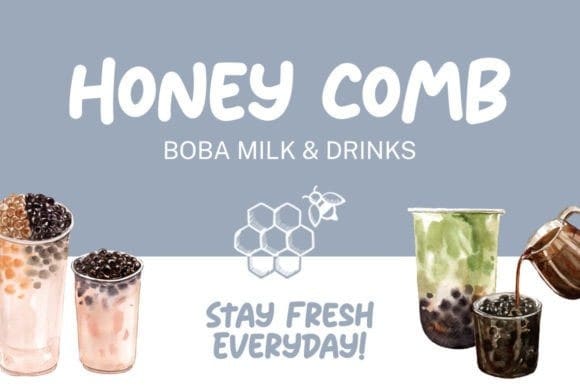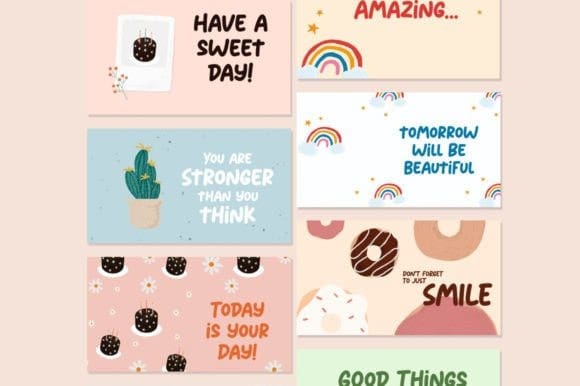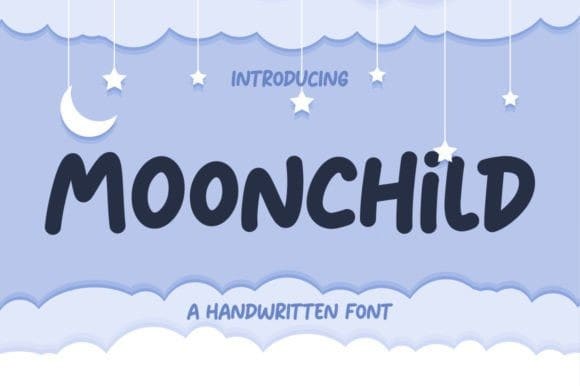
Moonchild Display Font
Moonchild Display Font, is a delicate and simple-lettered display font, perfect for all the chalkboard quotes and teaching materials you wish to create! Its authentic look will add a personal and realistic feel to your designs.